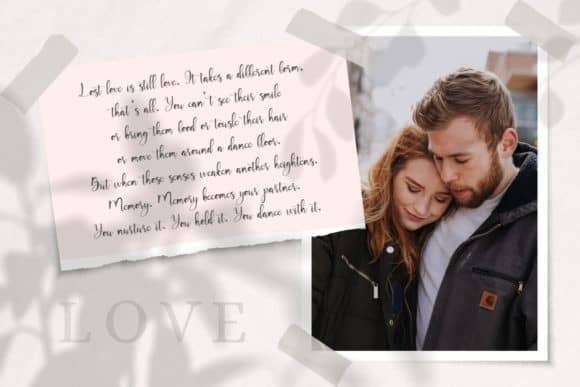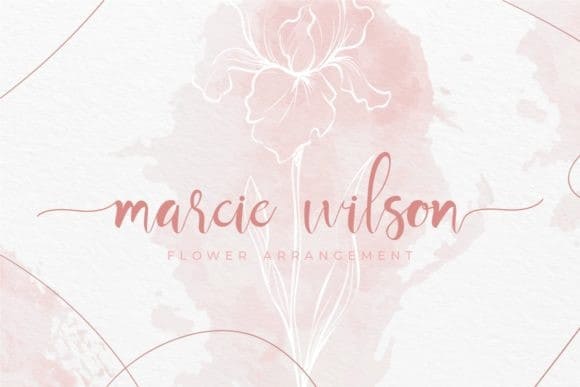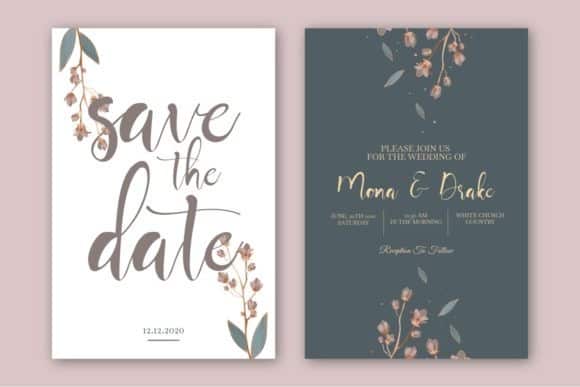
Mayla Calligraphy Font
Hello friend. Mayla Calligraphy Font is a calligraphy script font that comes with very beautiful changing characters, a kind of classic decorative copper script with a modern touch, designed with high detail to bring stylish elegance, it’s created by putracetol. It’s a beautiful handwritten script font. This font will look outstanding in any context, whether it’s being used on busy backgrounds or as a standalone headline!
This script is suitable for young, passionate design, such as logo design, t-shirts, branding, and various other design purposes.